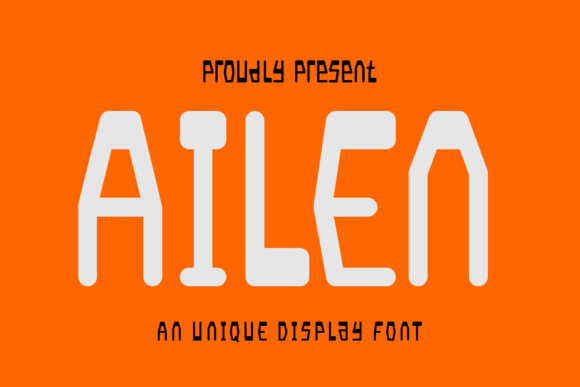
Ailen Font: Elevate Your Designs with a Modern and Unique Display Font
In the world of typography, fonts play a crucial role in making or breaking a design. A well-chosen font can instantly elevate your project, while a poorly chosen one can detract from it. If you’re a designer or crafter looking for a font that can make a statement, look no further than Ailen Font. In this article, we’ll take a closer look at Ailen, a clean and unique display font that’s perfect for headlines, logos, posters, and more.
What is Ailen Font?
Ailen Font is a modern display font that features a clean and unique design. Its sharp edges and smooth curves create a light and airy feel that makes it stand out in any design. Whether you’re working on a bold headline, a striking logo, or an eye-catching poster, Ailen Font is the perfect choice. Its versatility and legibility make it suitable for a wide range of design projects.
Key Features of Ailen Font
- Clean and Unique Design: Ailen Font boasts a modern design that’s both clean and unique. Its sleek lines and curves create a sophisticated look that’s perfect for designs that require a touch of elegance.
- Sharp Edges and Smooth Curves: The font’s sharp edges and smooth curves create a beautiful contrast that adds depth and visual interest to any design.
- Light and Airy Feel: Ailen Font has a light and airy feel that makes it perfect for designs that require a sense of openness and freedom.
- Perfect for Headlines, Logos, and Posters: Ailen Font is specifically designed for headlines, logos, and posters. Its bold and eye-catching design makes it perfect for grabbing attention and making a statement.
Why Choose Ailen Font?
So, why should you choose Ailen Font for your design projects? Here are just a few reasons:
- Stand Out from the Crowd: Ailen Font’s unique design ensures that your project will stand out from the crowd. Its modern look and feel make it perfect for designers who want to create something truly special.
- Easy to Read: Despite its bold and eye-catching design, Ailen Font is incredibly easy to read. Its clean lines and simple curves make it perfect for designs that require a high level of legibility.
- Versatile: Ailen Font is incredibly versatile. It can be used for a wide range of design projects, from bold headlines to striking logos and posters.
How to Use Ailen Font in Your Designs
Using Ailen Font in your designs is incredibly easy. Here are just a few tips to get you started:
- Pair it with Other Fonts: Ailen Font pairs perfectly with other fonts. Try pairing it with a clean sans-serif font for a bold and modern look.
- Experiment with Colors: Ailen Font looks great in a wide range of colors. Experiment with different colors to find the perfect one for your design.
- Use it for Headlines and Titles: Ailen Font is perfect for headlines and titles. Its bold and eye-catching design makes it perfect for grabbing attention.
| Font Name | Ailen Font |
| Author | Faris (7NTypes) |
In conclusion, Ailen Font is a clean and unique display font that’s perfect for designers and crafters who want to elevate their designs. Its modern design, sharp edges, and smooth curves create a light and airy feel that makes it stand out in any design. With its versatility, legibility, and ease of use, Ailen Font is the perfect choice for a wide range of design projects. So why wait? Download Ailen Font today and start creating stunning designs that make a statement!